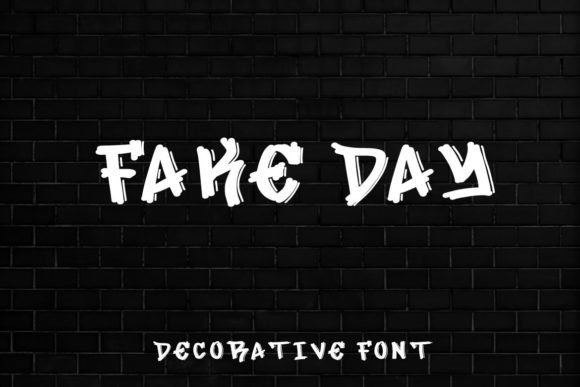
The Birth of a Street Art Masterpiece
Have you ever found yourself in a crowded coffee shop, staring at a blank page, trying to bring your latest design concept to life? The blank space stares back, taunting you to create something truly unique. That’s when the spark hits, and you start sketching out a bold, edgy font that screams street art.
This is where the Fake Day Font comes in – a perfect blend of urban vibes and modern flair. This versatile font is designed to add a touch of rebellion to any project, from logos to wall art, and even apparel branding. Whether you’re a seasoned designer or a creative enthusiast, the Fake Day Font is an essential tool in your toolkit.
With the Fake Day Font, the possibilities are endless. It’s a valuable asset for designers looking to inject some street cred into their work, and its adaptability makes it perfect for a wide range of applications. Get ready to unleash your creativity with the Fake Day Font and take your designs to the next level.
Fake Day Font Key Features
- Unique Characteristics: The Fake Day Font features a playful, handwritten style with irregular letterforms and a mix of uppercase and lowercase letters, making it perfect for creative and casual designs.
- Font Style: The Fake Day Font is available in a single font style, with no bold or italic versions available.
Review: Fake Day Font
Overall, I have mixed feelings about the Fake Day Font. On the one hand, I love its quirky and playful vibe ✨. The font is perfect for adding a touch of whimsy to any project that needs a bit of humor or lightheartedness. The bold, sans-serif design is eye-catching and attention-grabbing, making it great for headings or titles.
However, I do have some reservations about the font’s limitations ⚠️. For one, the font is not ideal for long blocks of text, as it can be tiring to read. The bold design can also make it difficult to distinguish between different lines of text, which can be a problem for complex layouts or dense content. Additionally, the font is not particularly versatile, and it may not be suitable for projects that require a more formal or professional tone.
Pros and Cons:
- Quirky and playful vibe ✨
- Eye-catching and attention-grabbing design
- Perfect for headings or titles
- Not ideal for long blocks of text
- Difficult to distinguish between different lines of text
- Not particularly versatile
Practical Application Guide: Fake Day Font
Use Fake Day Font to create eye-catching headlines, add a touch of whimsy to your designs, or create a bold and playful aesthetic.
For best results, pair Fake Day Font with a clean and simple design to avoid overwhelming the viewer.
Common use cases include social media graphics, advertising materials, and event promotions.